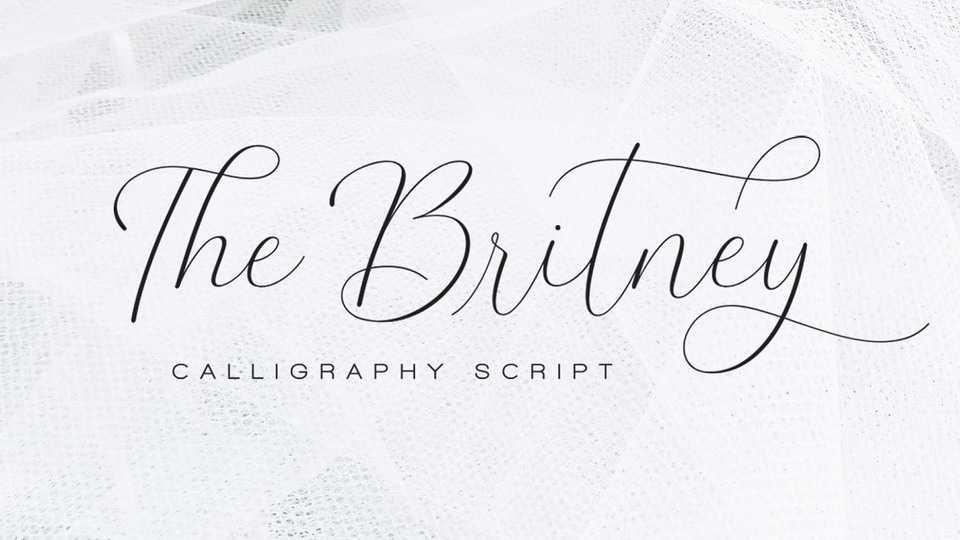
Download The Britney font, a gorgeous calligraphy script for those of you who are needing a touch of elegance and modernity for your designs.The Britney font has every single letters have been carefully crafted to make your text looks beautiful.